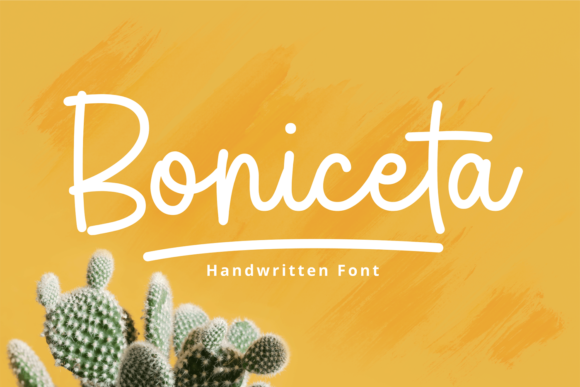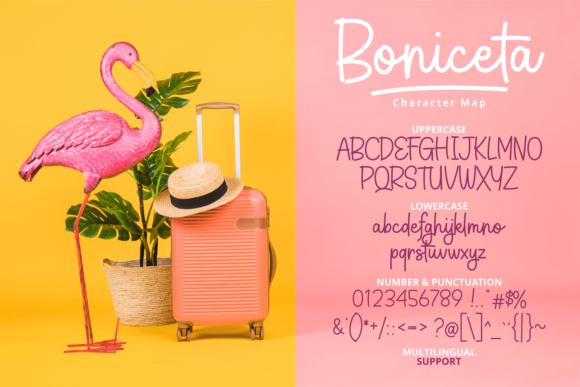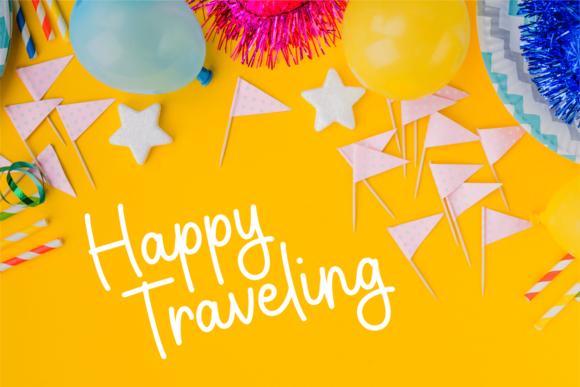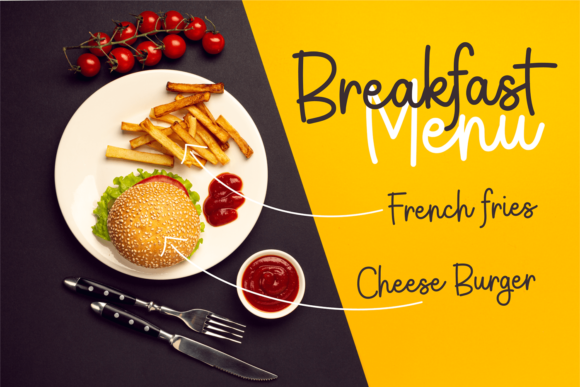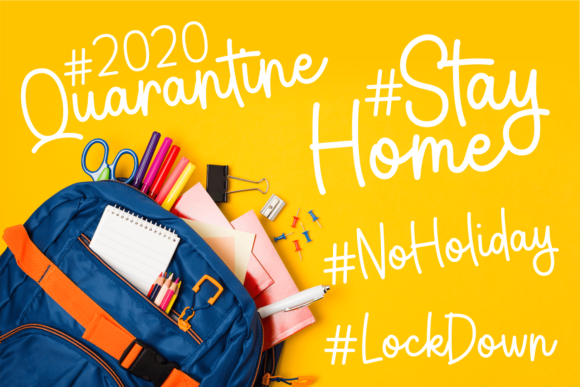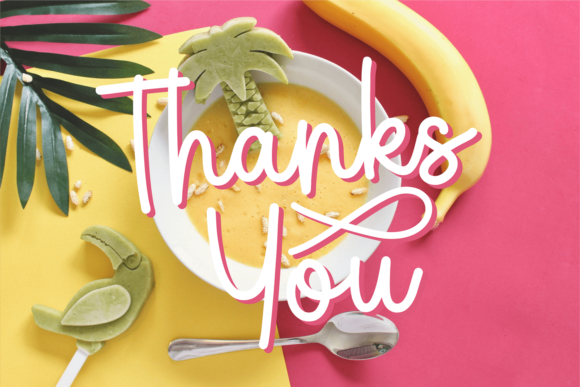
Boniceta Font
About Boniceta Font
Boniceta simplifies elegance into one truly outstanding script font. Use this gorgeous and unique handwritten font to bring any DIY project to life!